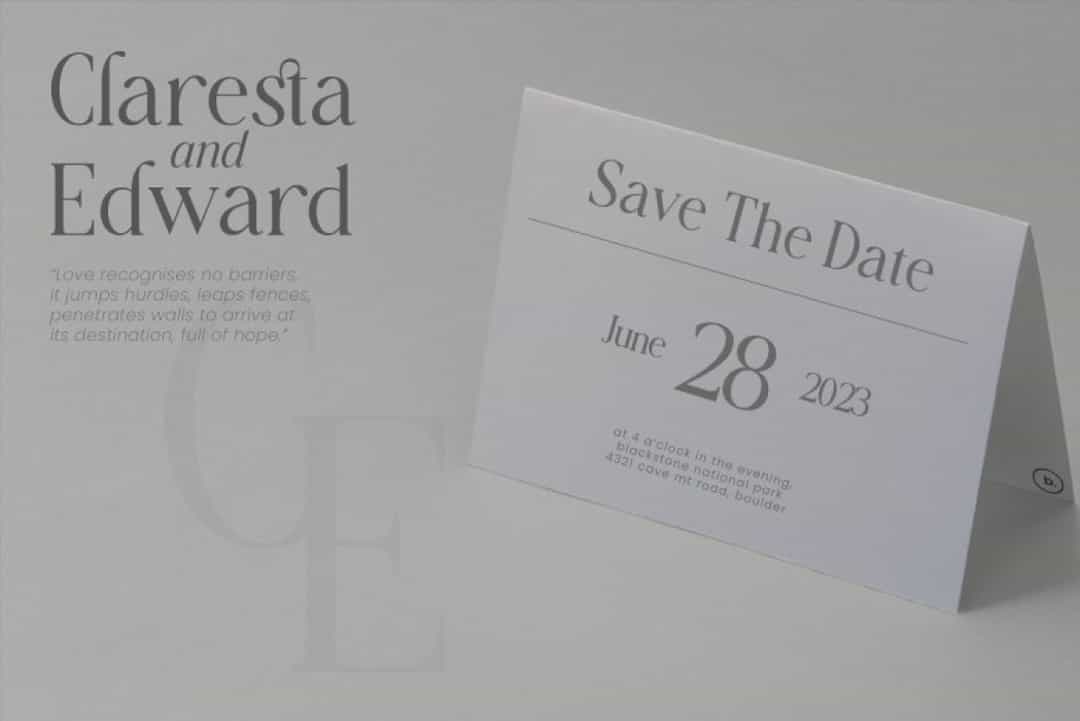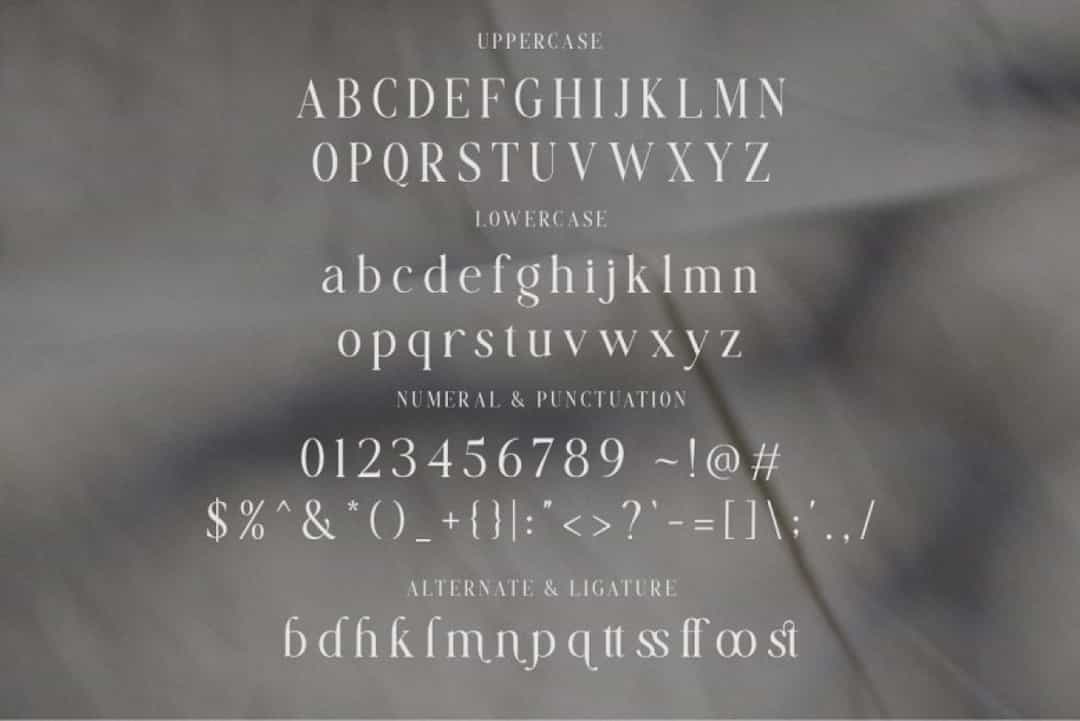
Flawsome is an elegant and contemporary serif typeface which blends traditional serif features with contemporary designs, such as sleek modern lines and distinctive imperfections that give it a handmade aesthetic. Perfect for logos, branding campaigns, headlines titles or more this font adds class and distinction to any design project.